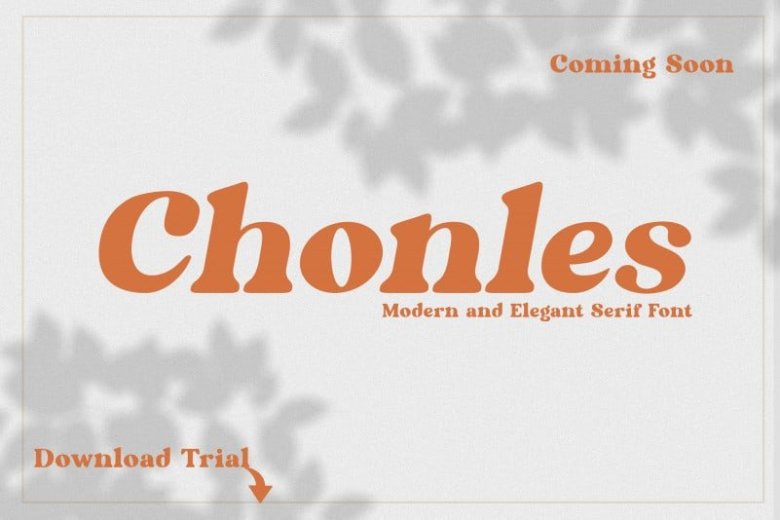
Chonles Serif Font
Chonles Serif Font is a fresh, basic, wedge-serif font family inspired by Transitional and Contemporary typefaces. Chonles has a big x-height value, modern proportions, sharp serifs and an extreme stroke contrast with a vertical stress.